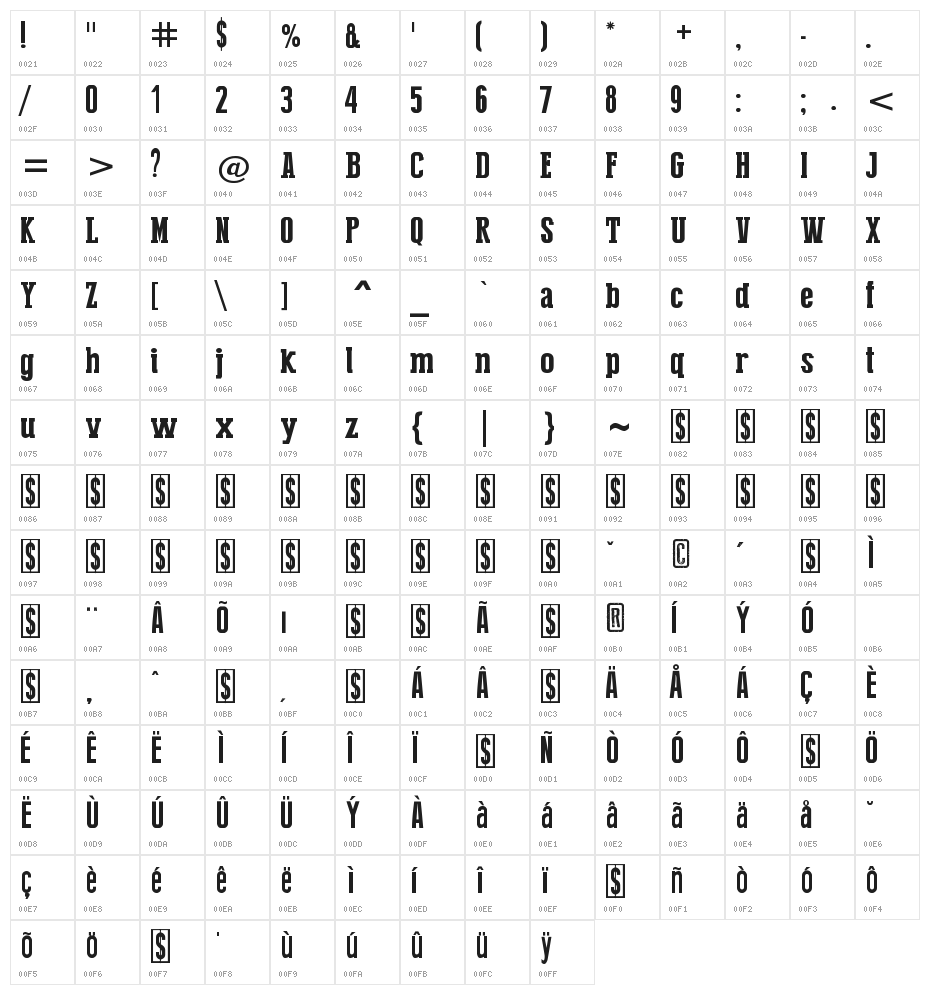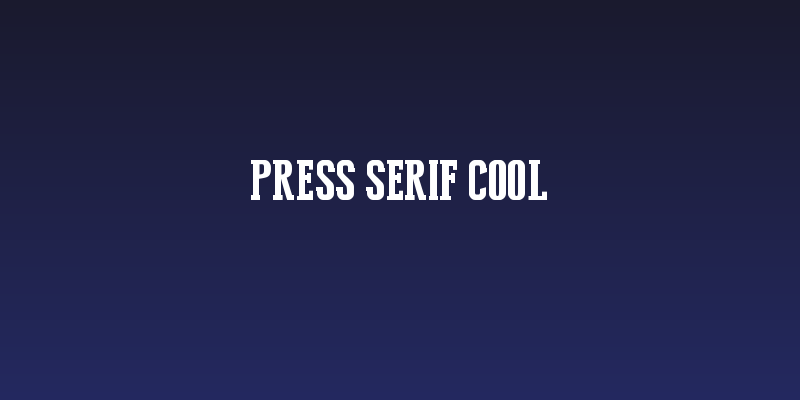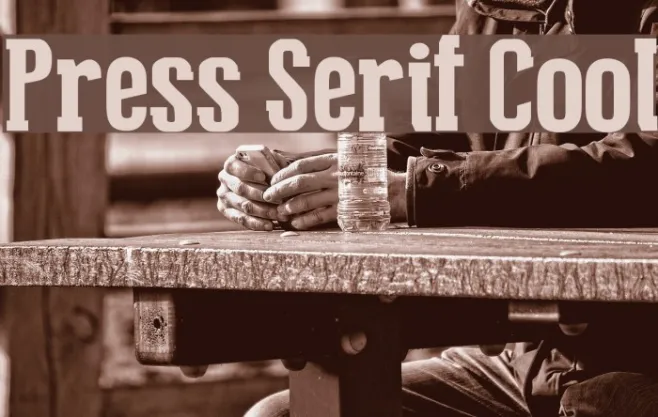
Press Serif Cool Font
Press Serif Cool Description
This font features a bold and commanding presence with its strong slab serif design. The characters are robust and have a substantial weight, making them highly legible and impactful. The uppercase letters are particularly striking, with a classic yet modern feel that is both authoritative and stylish. The lowercase letters maintain the same boldness, ensuring consistency throughout the typeface. The numerals are clear and distinct, suitable for a variety of applications. Special characters are included, adding versatility to the font's usage. Overall, this font exudes confidence and is perfect for making a statement.
| Proposed Projects | Ideal for headlines, posters, branding, and any project requiring a bold statement. |